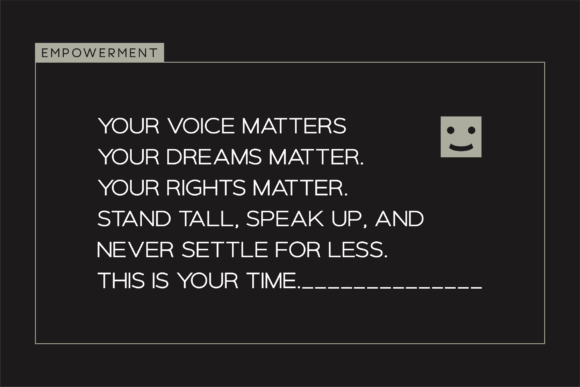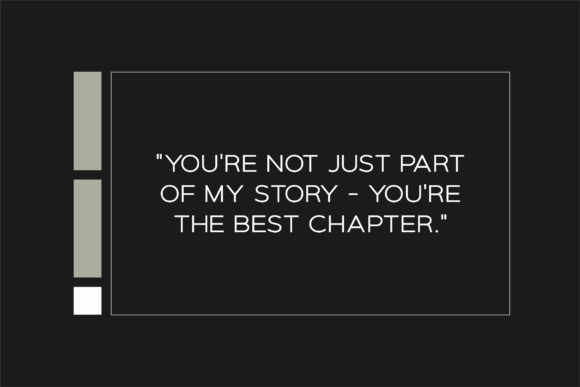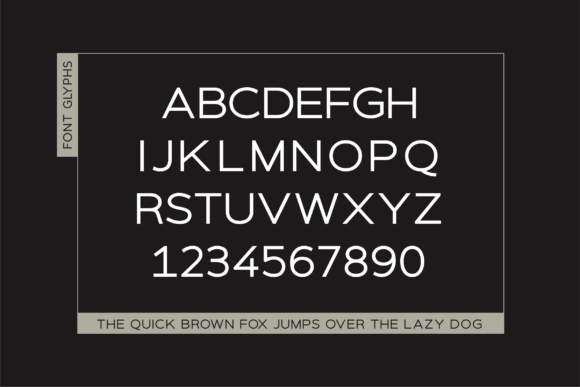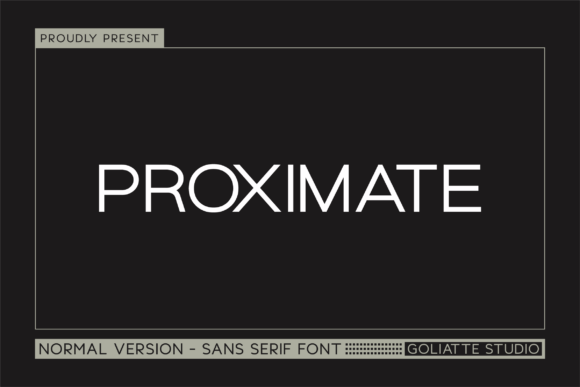
Introduction to Proximate Font
Introducing Proximate – A Modern Sans Serif Typeface Proximate is a bold, all-caps sans serif font designed for the modern designer.
With its clean lines and minimalist aesthetic, this typeface exudes strength and authority It is perfect for projects that require a sense of professionalism and impact.
Key Features of Proximate Font
Why Choose Proximate Font?